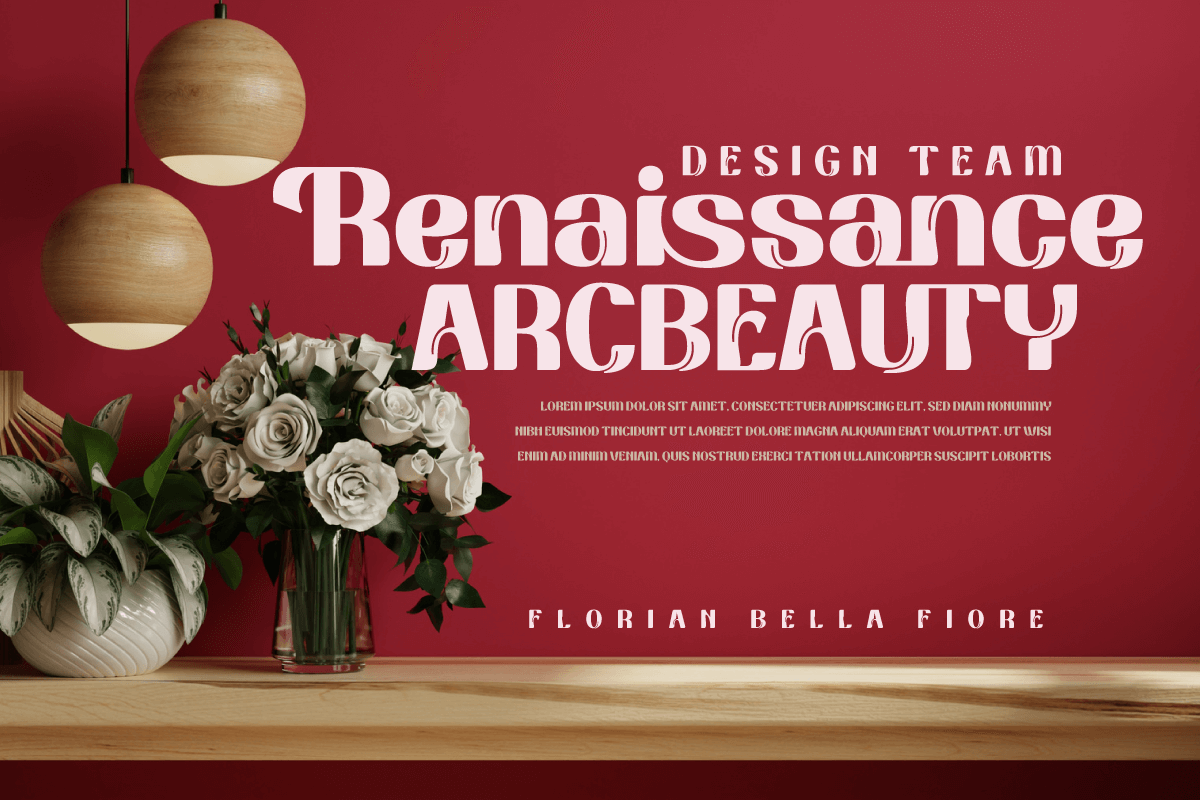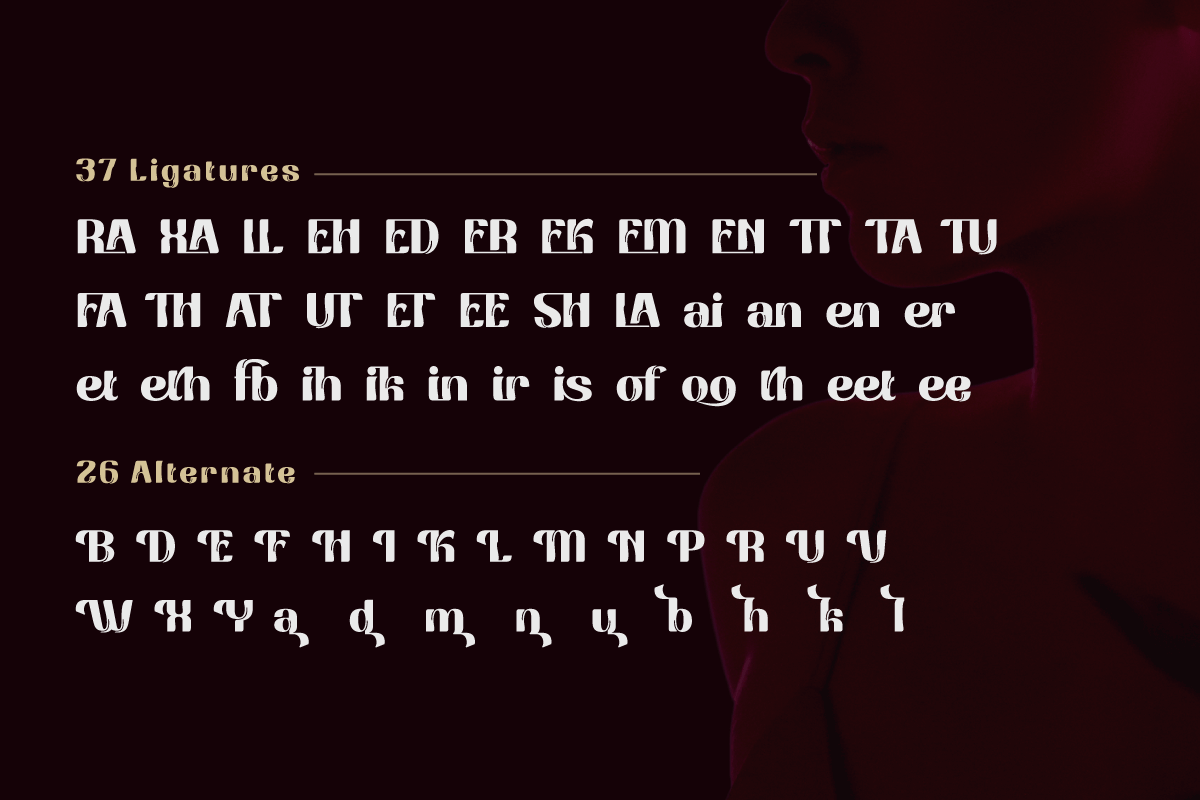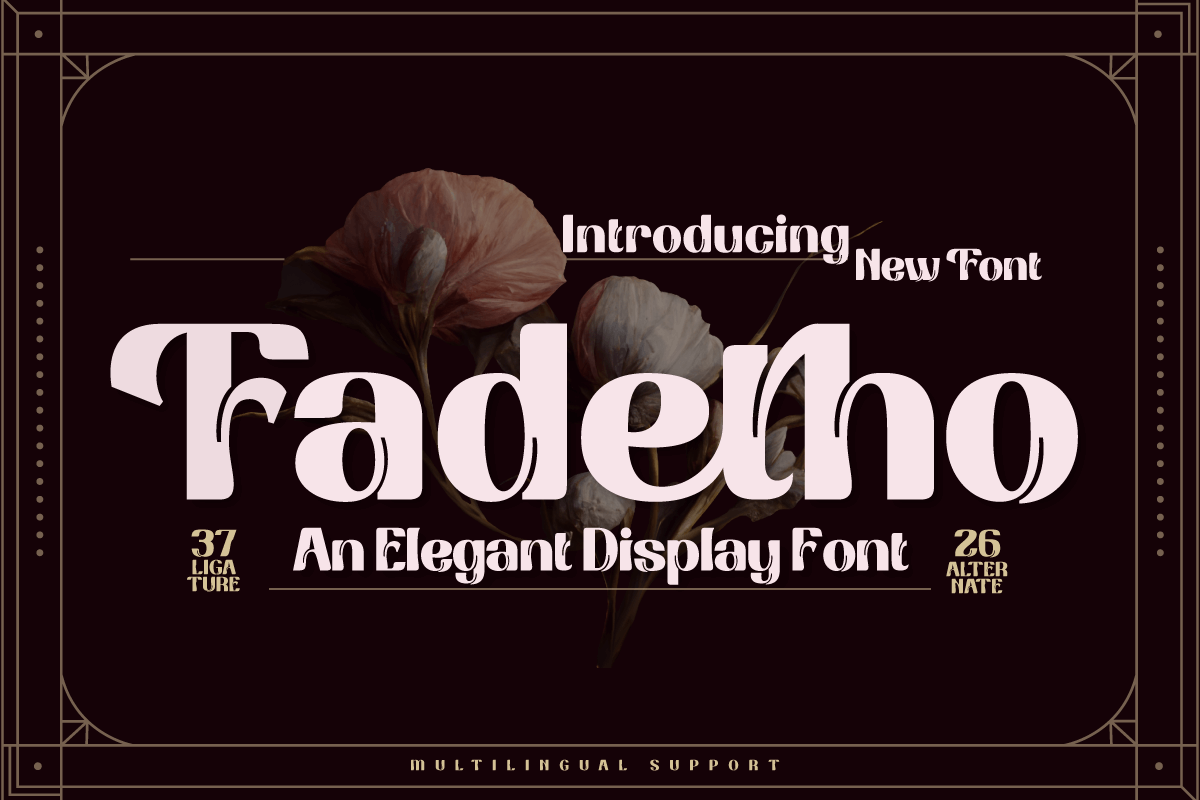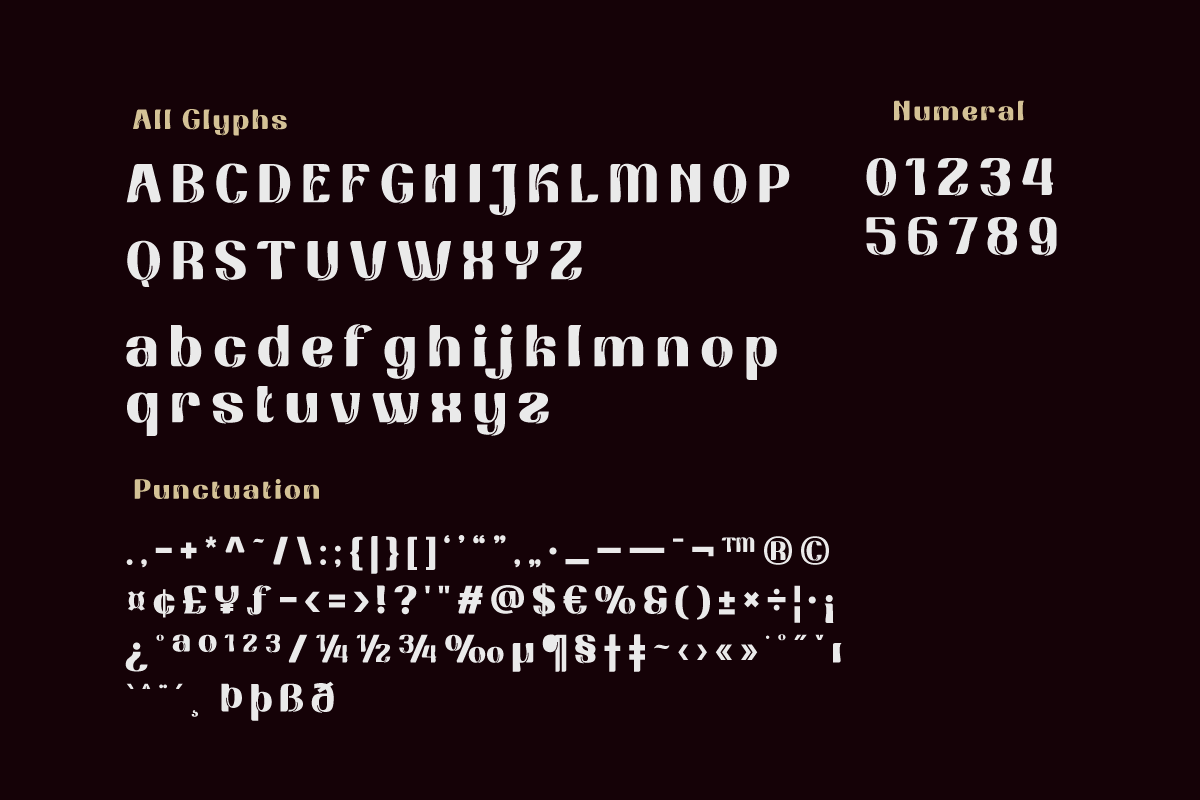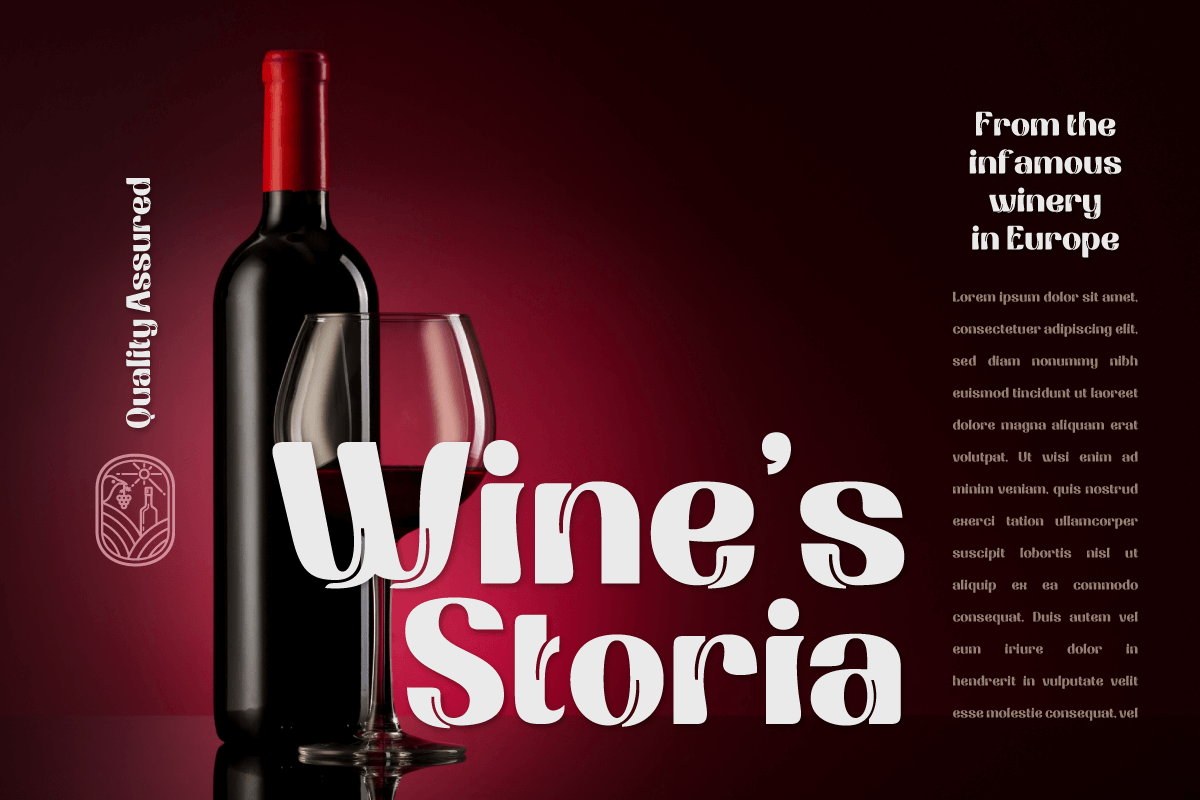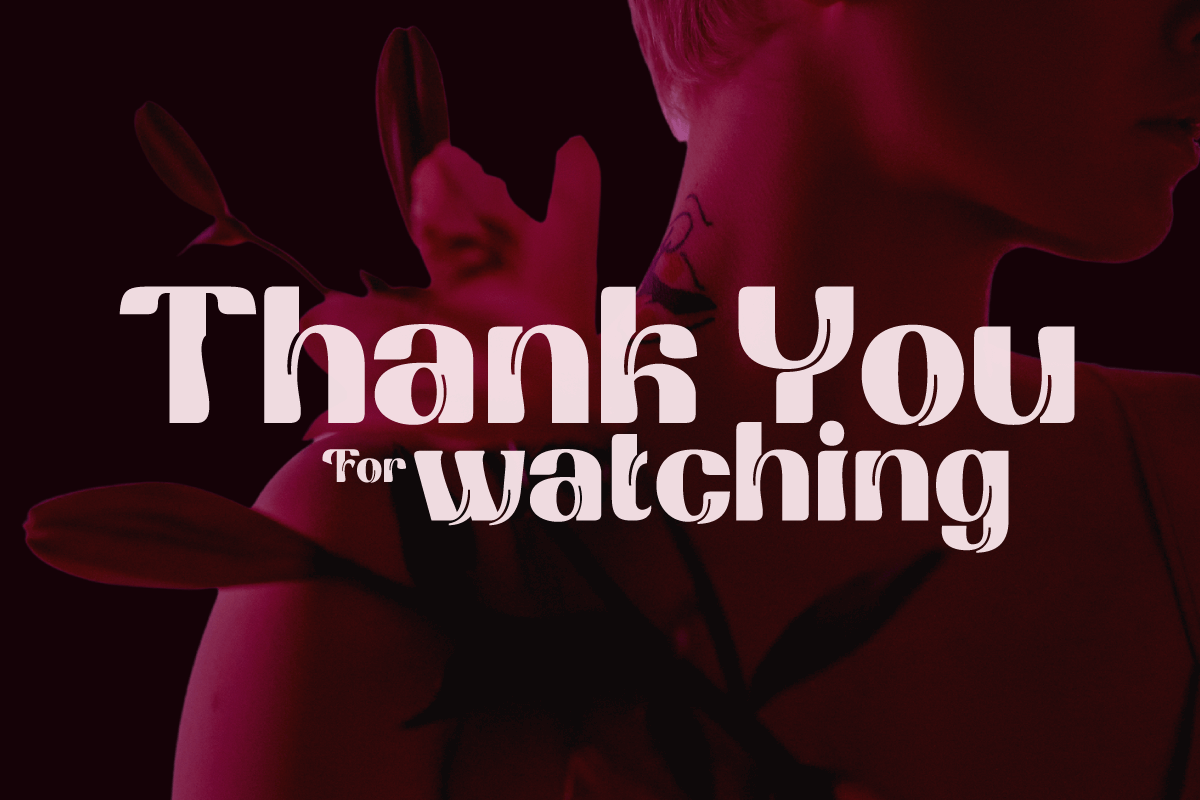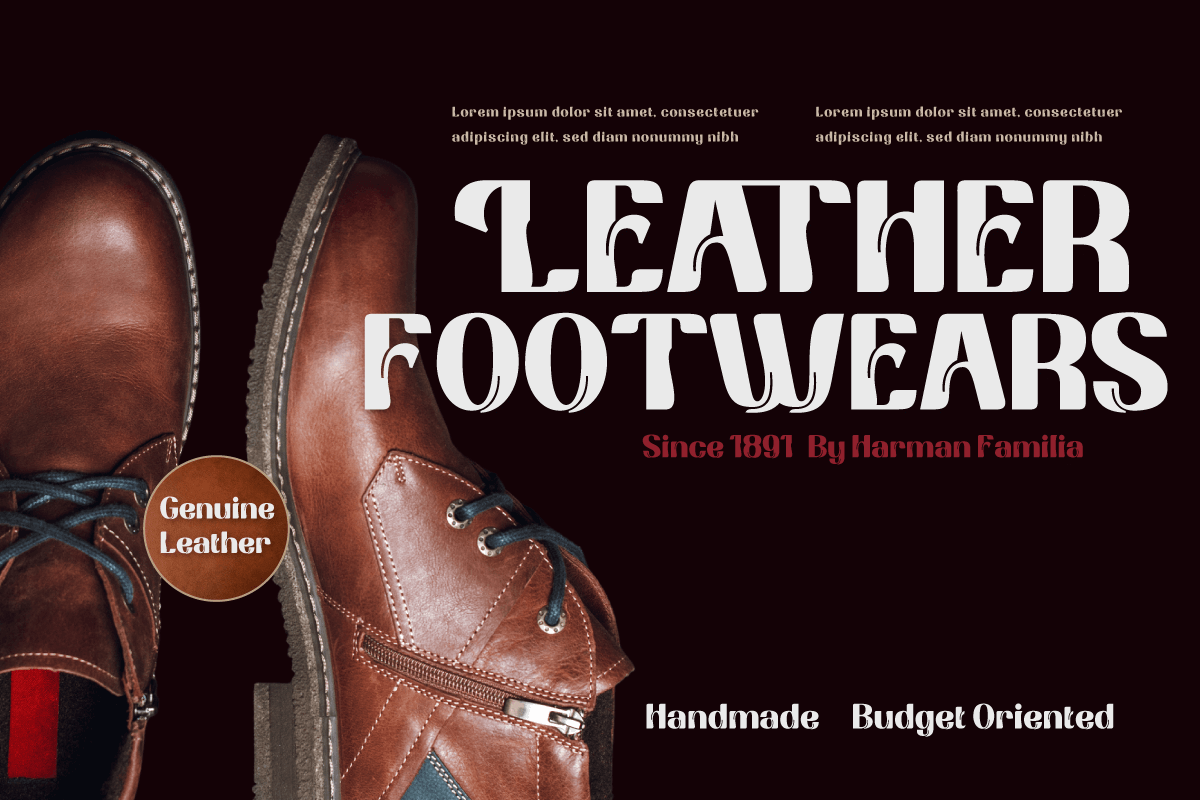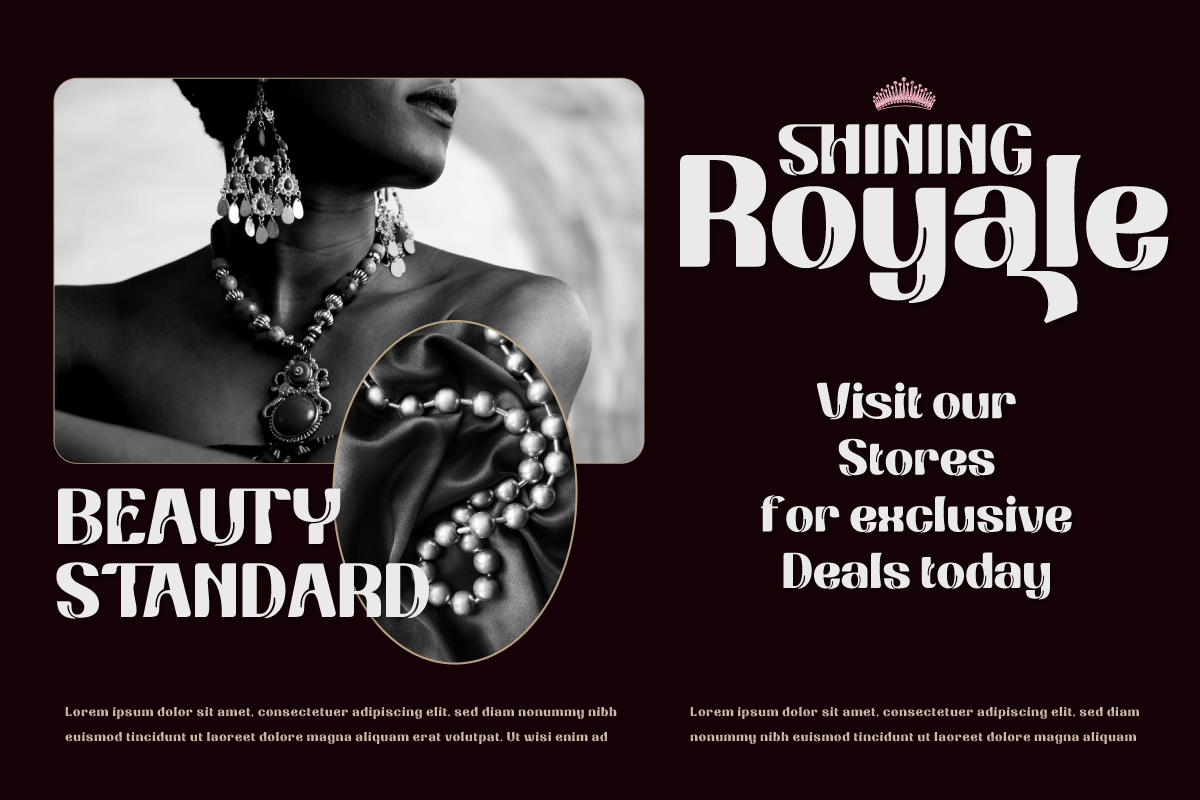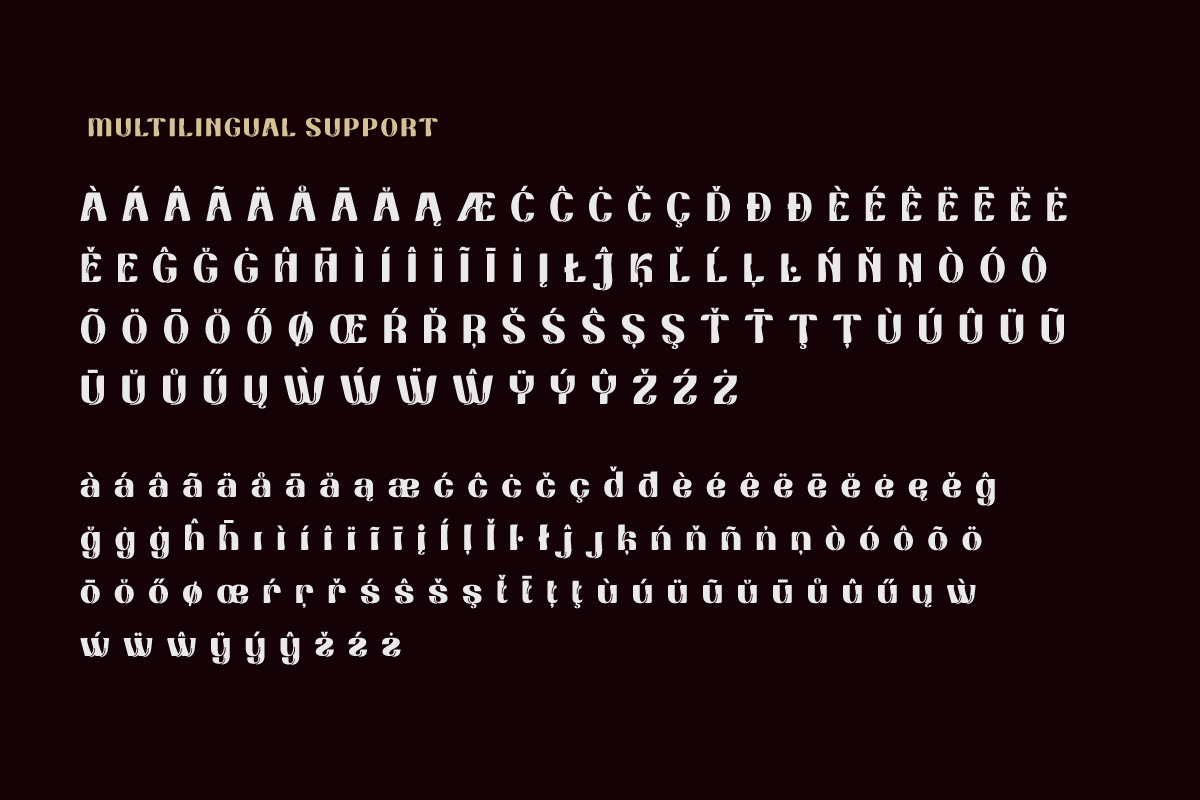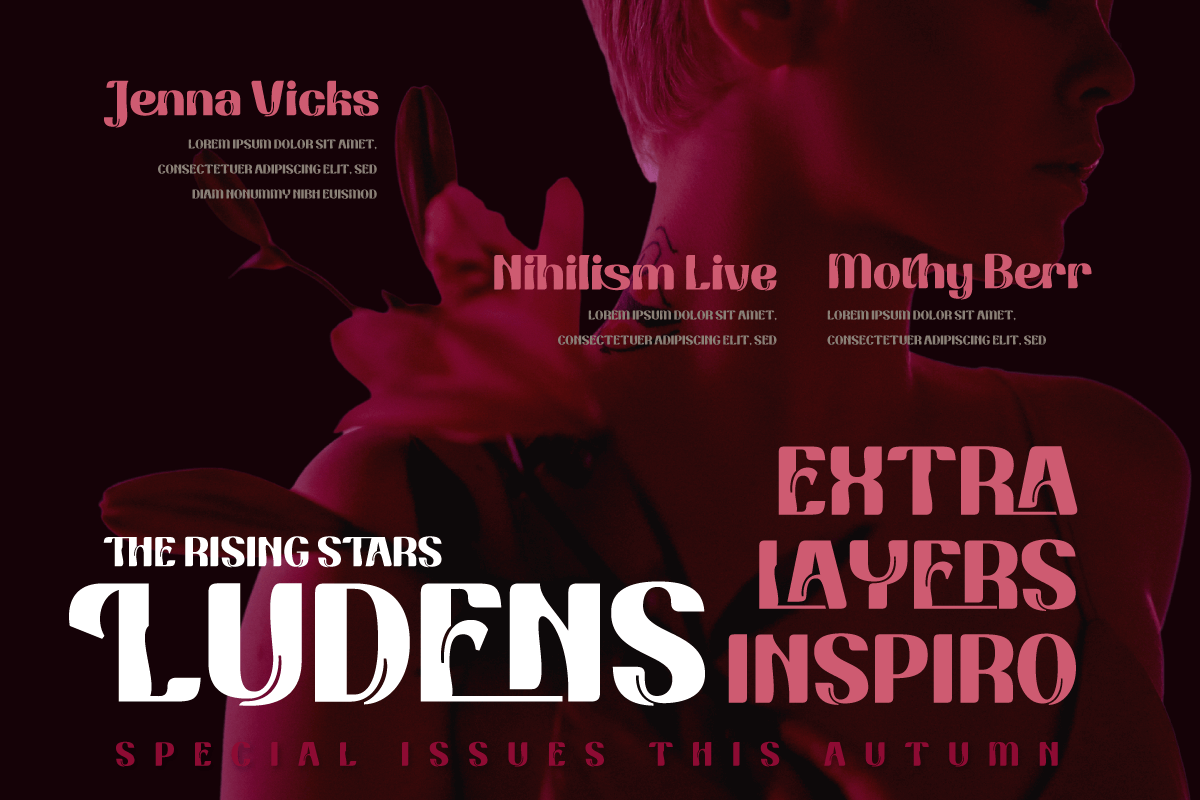
Fadetho | Display Font
Introducing Fadetho, a display font that captivates and brings elegance to each of your projects. With a relaxed and elegant theme, Fadetho is the perfect solution for creating charming and creative looks.
Fadetho’s excellent features make it an attractive choice. With the available ligatures and alternates, you can combine beautiful characters and create unique and classy typography designs.
Not only that, Fadetho is also multilingual, allowing you to reach an international audience and adapt this font to multiple languages. This gives you flexibility and expands the potential of your project.
The elegant style and touch of elegance in every Fadetho lettering make it the perfect choice for projects that require a special feel. Let this font add an exclusive touch to your designs.
- Alternate, Ligature
- Fonts include Multilingual support